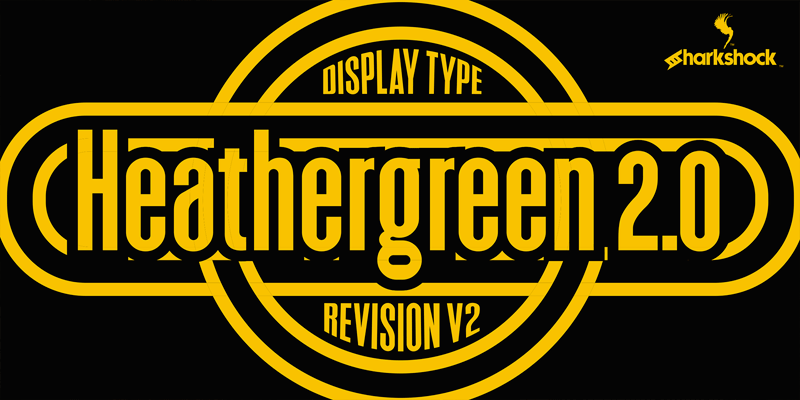
Heathergreen 2.0
OTF/TTF: Heathergreen 2.0 Sharkshock 2026. All rights reserved Designed by Dennis Ludlow 04/23/2026 dennis@sharkshock.net mailto:dennis@sharkshock.net Heathergreen 2.0 is a tightly spaced display sans that returns for a facelift. A close relative of the Deutschlander family, the 2.0 update was designed to squeeze in text where space was limited. Many letters were completely redrawn and the overall height was reduced by about 20%. Spacing was completely redone for a smoother flow. Clean and semi-condensed, it offers a minimalistic look and high legibility. Use it for movie credits, a book title, or a poster. Heathergreen 2.0 is equipped with Basic and Extended Latin, diacritics, Cyrillic, Greek, punctuation, alternates, and kerning. Please check the glyph maps for all supported characters. The demo contains basic characters only. The full version is available by either purchasing a commercial license or a one-time $55 payment for personal use only. Email us or visit www.sharkshock.net/license http://www.sharkshock.net/license for more information on licensing. Unauthorized usage of our intellectual property is strictly prohibited and may result in legal action. Tags: Cyrillic, Greek, condensed, sans-serif, display, tall, modern, headline, credits, narrow, skinny, tight, packed, squeezed, thin